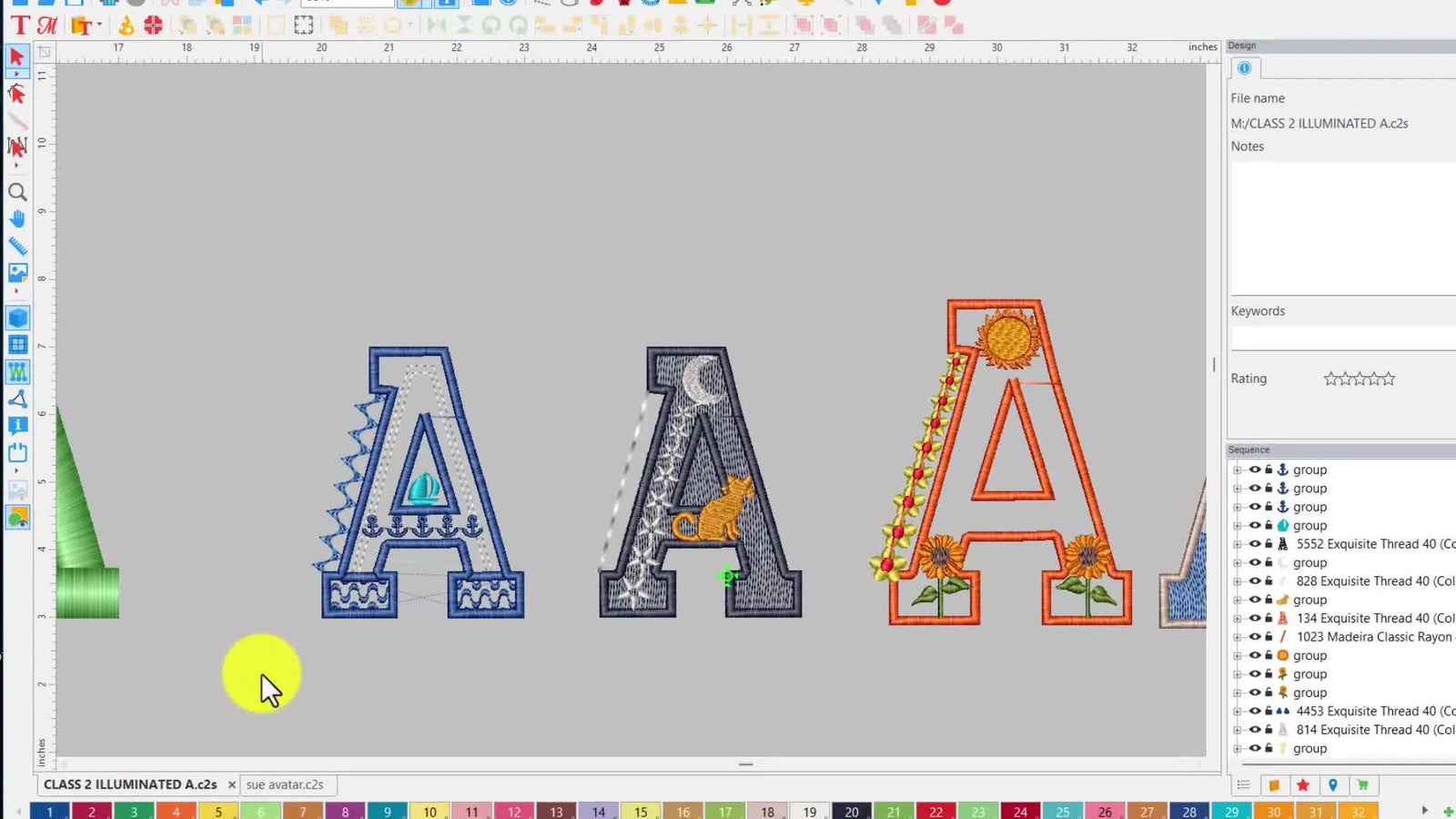
If you’ve ever looked at a fancy “illuminated” letter and thought, “That’s gorgeous… but digitizing is above my head,” you’re not alone. In my 20 years on the production floor, I’ve watched thousands of stitchers hit the same wall: fonts feel rigid, outlines feel unpredictable, and the moment you add motifs or symbols, the border turns messy like a bird’s nest.
But here is the secret: The machine doesn't know "art." It only knows coordinates and physics.
This post rebuilds the exact workflow shown in the video—cleanly, in order, and with the "Experience-Grade" checkpoints that keep you from wasting an hour on a design that looks good on screen but shreds your thread in reality.
Calm the Panic: “Digitizing Is Above My Head” Usually Means You Skipped One Tiny Software Move
One viewer said they were confused from the start, and that’s the most honest comment in the whole thread. The good news: this project isn’t “advanced math.” It’s a repeatable sequence of small moves—break apart, outline, convert, smooth, decorate, reorder.
Here’s the mindset that keeps you steady: you’re not inventing a font from scratch. You’re borrowing a built-in font, then reshaping it into your own artwork by editing pieces and layering stitches.
The Reality Check: Whether you use Embroidery Tool Shed, Hatch, or PE Design, the physics remain the same. The video uses Embroidery Tool Shed, but we are focusing on the principles of density and structure that apply to every machine from a single-needle home unit to a 15-needle commercial beast.
The “Hidden” Prep Before You Touch Embroidery Tool Shed: Pick a Letter That Won’t Fight You
Sue starts by choosing a built-in font (she mentions “New Brington”) and immediately edits what she doesn’t like—like a swirl that becomes a tail, or moving the crossbar of an “A.” That’s the right instinct: choose a font with strong structure, then customize.
Two practical realities from the video matter here:
- The Satin Stitch Limit: When you scale lettering too large (usually over 7mm-10mm wide), satin stitches become long, loose loops that snag easily.
- The "Shape Source" Concept: For these illuminated letters, you’re often using the font as a cookie cutter outline, not as a final satin-lettering file.
Experience Note: Illuminated letters are dense. They pull fabric inward. If you use standard hoops on a t-shirt without perfect technique, you will get "puckering"—where the fabric ripples around the letter.
If you’re already using hooping for embroidery machine techniques that work for light monograms, stop. Treat illuminated letters as a different category: they behave more like heavy patches. This is where many professionals switch to magnetic frames to hold the fabric tension evenly without the "ring burn" causing distortion.
Prep Checklist (Do this once per project)
- Structure Check: Does the font have thick enough legs to hold a motif? (Thin scripts will fail).
- The "Undo" Safety Net: Save a copy of the original letter before you start editing.
Grid Check: Turn on your grid (usually command+G or View > Grid). You cannot eyeball alignment on a computer screen accurately.
Break Up Text on the New Brington Font: The Fastest Way to Remove Swirls and Move Crossbars
The first technique is pure power: break the text into editable pieces so you aren't fighting the software's auto-formatting.
Action Steps:
- Isolate: Right-click the text object.
- Break: Choose Break Up Text.
- Ungroup: Verify the letter components become independent objects.
- clean: Click the specific swirl or bar you dislike and hit Delete.
Sensory Check: You’ll know it worked when the big box around the whole word disappears. Each part of the letter should have its own little "handles" (nodes).
Why this matters: If you don't break the text, the software will try to recalculate stitches every time you resize, often ruining your custom adjustments.
The “Inside” Checkbox in Create Outline: The One Click That Saves the Hole in Your A
Next, Sue demonstrates creating an outline from a letter shape. This is the foundation of the illuminated look.
Action Steps:
- Select: Click your letter.
- Tool: Open Create Outline.
- Distance: Set the outline distance (Video suggests 0.08 inches or 2mm).
- CRITICAL: Check the box labeled Inside. This preserves the "counter" (the empty hole in A, O, P, B).
- Execute: Click OK.
Sensory Check: You should see a new line drawing appear exactly parallel to your original letter. If the inside hole is missing, your letter will look like a solid blob.
Expert Tip: If the software refuses to recognize the hole, your font might be too small. Try enlarging the source letter by 20%, creating the outline, and shrinking it back down later.